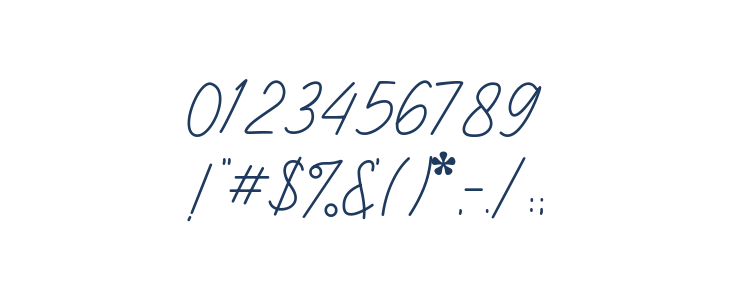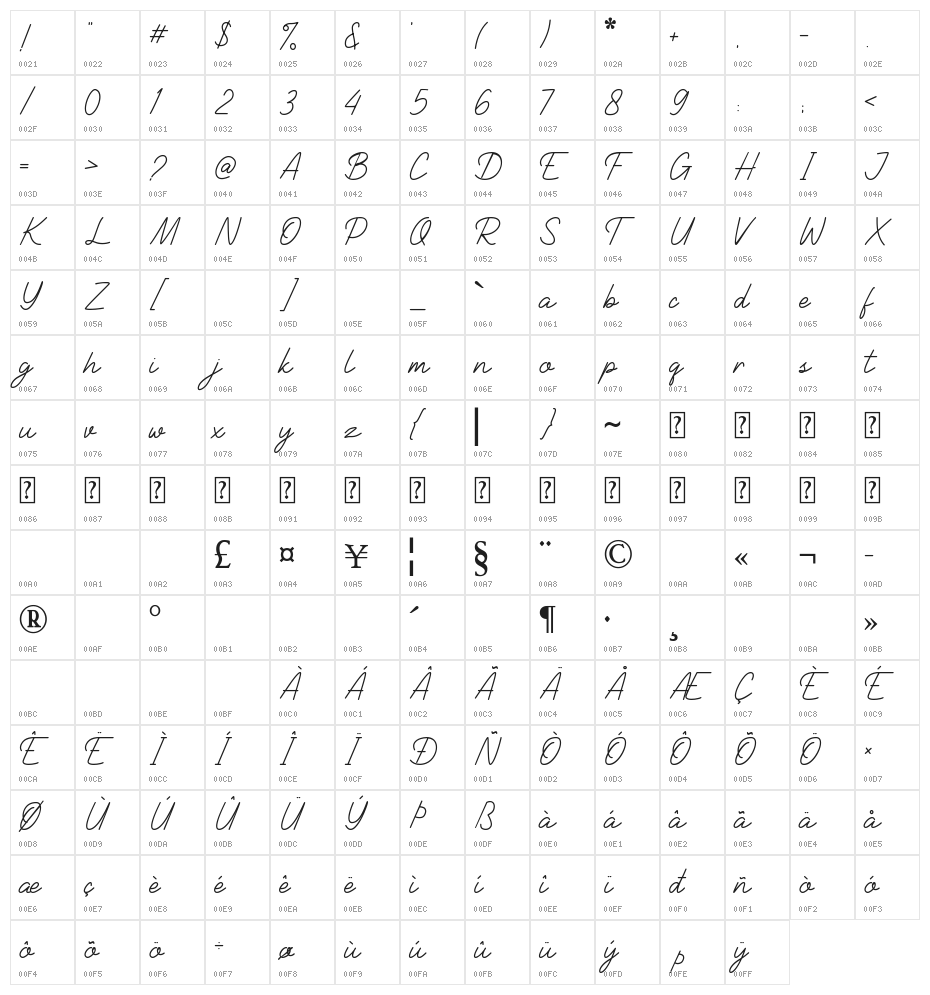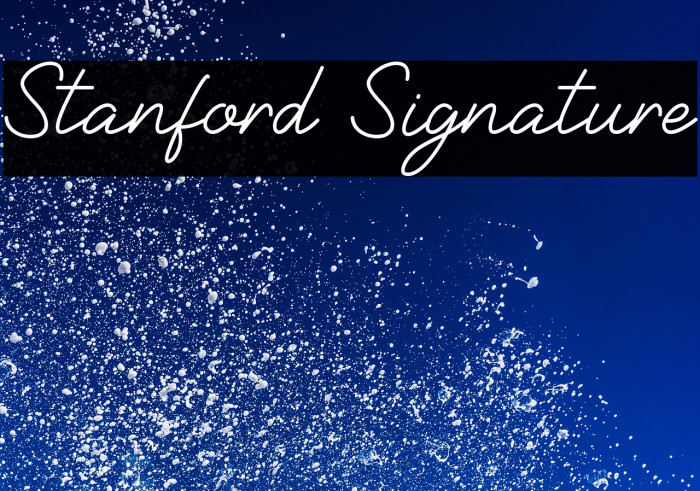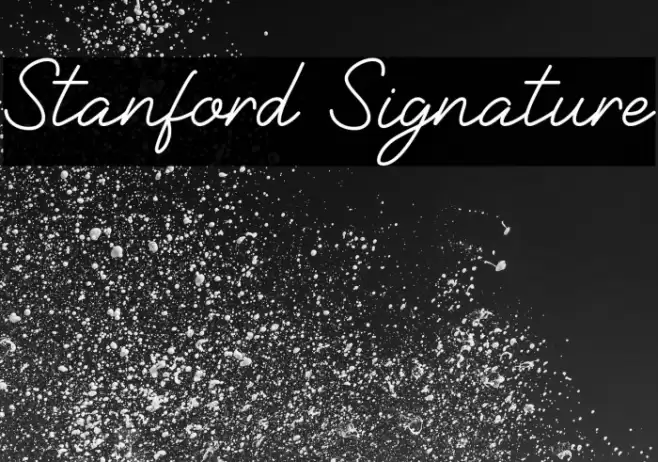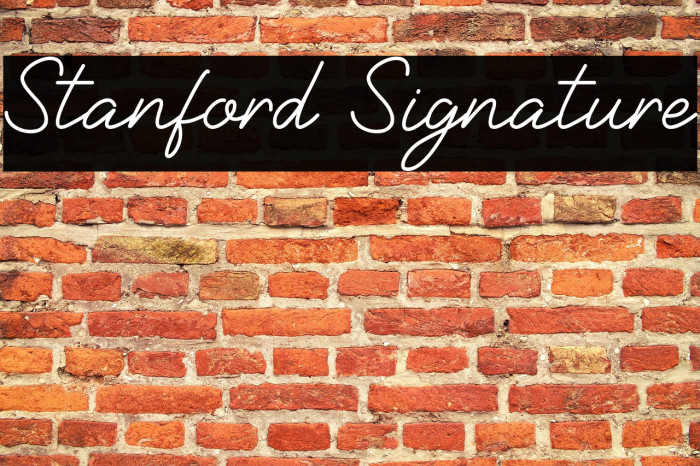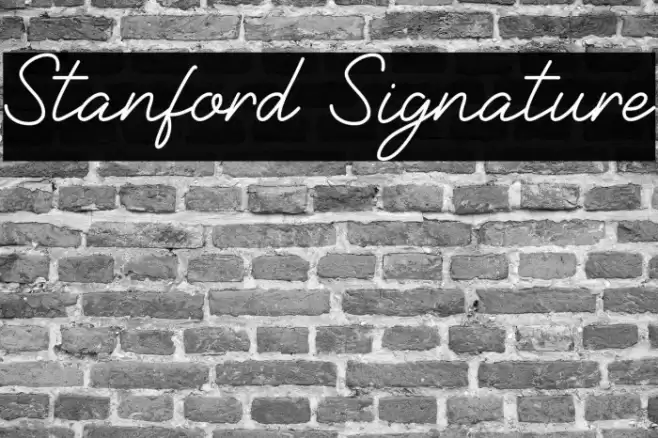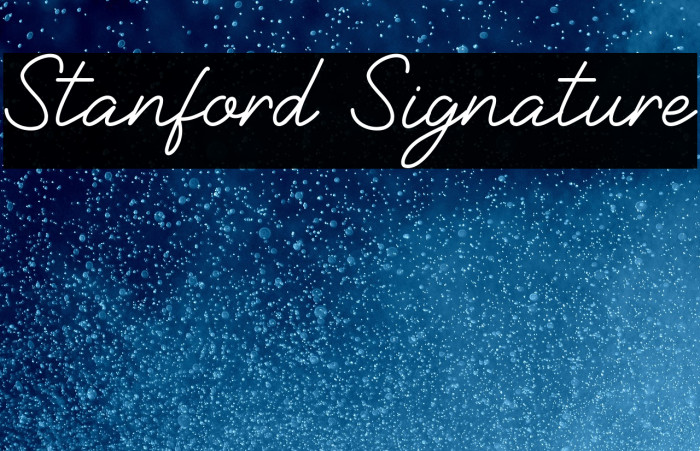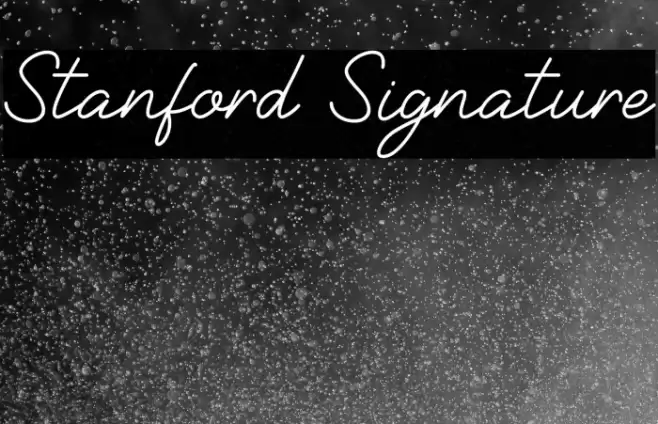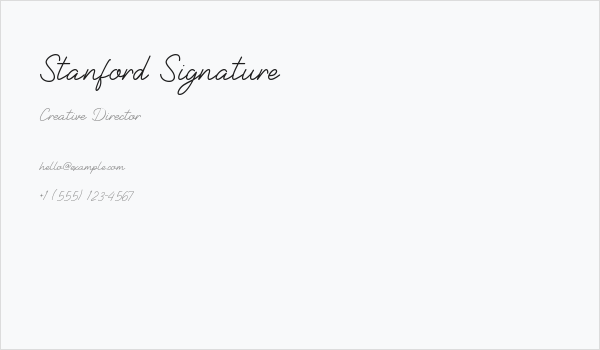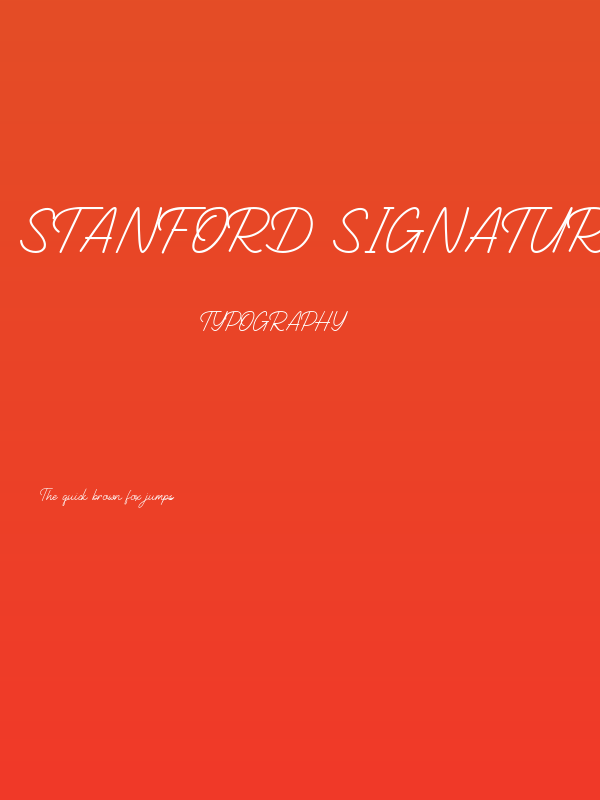
Stanford Signature Font
Stanford Signature Description
This elegant script font features a flowing, cursive style that mimics natural handwriting. Each letter connects smoothly to the next, creating a seamless and fluid appearance. The uppercase letters are slightly larger and more pronounced, adding a touch of sophistication. The lowercase letters maintain a consistent slant, enhancing the handwritten feel. Numbers and special characters are designed with the same fluidity, ensuring a cohesive look across all text. The font's delicate strokes and graceful curves make it ideal for projects that require a personal touch.
Overall StyleElegant, Handwritten
Use CaseLogos, Invitations, Personal Correspondence
Proposed ProjectsIdeal for wedding invitations, personal branding, greeting cards, and elegant stationery.